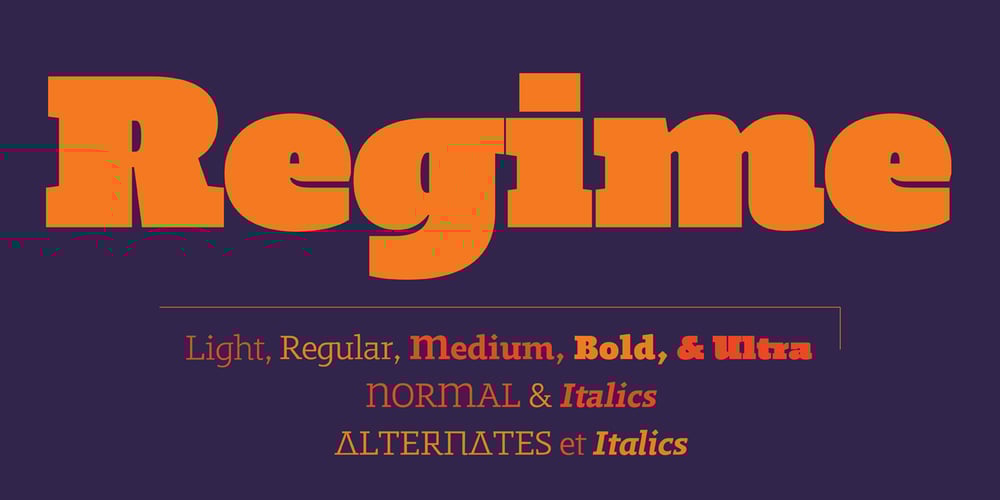
Regime
Regime font
Regime Font Family was designed by Marcus Leis Allion, Jonathan Barnbrook and published by Barnbrook Fonts. Regime contains 10 styles and family package options. Historical influences coalesce with a contemporary twist to form the striking slab serif typeface Regime. In the early 19th century, as the Industrial Revolution began to transform Britain, the slab serif was born. The impact of new technology created a demand for a visual language that was compatible with mass-production and that could capture the attention of a newly-literate consumer. The design of the first slab serif typeface is credited to British punchcutter and typefounder Vincent Figgins and was released under the name Antique in 1815. In the same year, Napoleon was defeated at Waterloo. The name Regime alludes to this moment in history, when Britain emerged as the principal naval and imperial power of the 19th century.